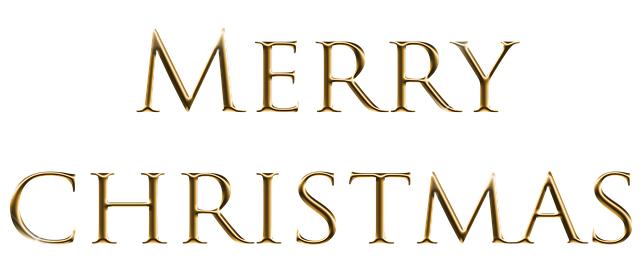
Shine Bright: How to Get Glitter Font on Canva
If you’ve ever wanted to add a touch of sparkle and whimsy to your designs, look no further than glitter fonts. These dazzling text styles can bring your projects to life and grab the attention of your audience. In this article, we’ll show you how to easily create glitter font on Canva, so you can shine bright and stand out in the digital world. Let’s dive in and add some sparkle to your designs!
Choosing the Right Glitter Font
When it comes to selecting the perfect glitter font for your project, there are a few key factors to consider. Firstly, you’ll want to think about the overall style you’re going for. Are you aiming for something elegant and sophisticated, or fun and playful? The right glitter font can really make a statement and set the tone for your design.
Next, consider the readability of the font. Despite the glitzy appearance, it’s important that your text remains legible. Opt for a glitter font that is clear and easy to read, even when used in larger sizes or for headings. Additionally, take into account the color contrast between the glitter and the background. A font that stands out too much can be distracting, so aim for a good balance that highlights your text without overpowering it. Remember, the key is to make your message shine, not get lost in the sparkle.
Exploring Canva's Font Library
Exploring Canva’s Font Library
In Canva’s font library, you’ll find a diverse range of typefaces to suit any design project you’re working on. From classic serif fonts to modern sans-serif styles, you can easily browse through the selection to find the perfect typography to enhance your visual creations. With options for different moods and aesthetics, you can elevate your designs with the right font choice.
One of the great features of Canva’s font library is the ability to filter by font style, weight, and mood. Whether you’re looking for a whimsical script font for a wedding invitation or a bold, impactful typeface for a marketing campaign, you can easily narrow down your search to find the ideal font for your needs. **Experiment with different combinations** of fonts to create unique visual identities for your projects and make your designs stand out from the crowd.
Customizing Glitter Effects for Text
Are you looking to add some sparkle to your text? Look no further! With just a few simple techniques, you can customize glitter effects for your text to make it stand out and shine.
First, choose the perfect glitter texture to achieve the desired look. Whether you prefer a subtle shimmer or a bold sparkle, there are plenty of options to choose from. Next, consider the color of the glitter. Experiment with different shades to find the one that complements your text the best. Once you’ve selected your glitter texture and color, it’s time to apply it to your text using HTML. Simply use the tag with the style attribute to add the glitter effect. Play around with the font size, weight, and style to enhance the overall look. With a bit of creativity and experimentation, you can create a truly unique and dazzling effect for your text.
Adding Depth and Dimension to Your Glitter Font
When it comes to creating a visually captivating glitter font, adding depth and dimension is key. One way to achieve this is by incorporating shadow effects. By adding a drop shadow behind your text, you can give the illusion of depth and make your glitter font pop off the page. Experiment with different shadow angles and distances to find the perfect balance for your design.
Another technique to enhance the depth of your glitter font is by using gradient colors. Create a gradient that goes from a light color to a darker shade to mimic a 3D effect. This will add visual interest and make your text appear more dynamic and lifelike. Don’t be afraid to play around with different gradient styles and colors to find the combination that works best for your design.
Incorporating Sparkles and Shimmers
When into your outfits or makeup looks, it’s important to find the right balance to avoid going overboard. You can start by adding subtle hints of sparkle to elevate your overall look without it being too overwhelming. Consider incorporating sparkly accessories like a clutch or jewelry to add a touch of glamour without being too flashy.
In terms of makeup, you can opt for shimmery eyeshadows or highlighters to add a subtle glow to your face. Blend shimmery eyeshadows onto your eyelids for a hint of sparkle that catches the light beautifully. A touch of shimmer on your cheekbones can also add a youthful and radiant appearance to your makeup look. Remember, less is more when it comes to – a little goes a long way to make a statement.
Mixing and Matching Glitter Fonts
Are you looking to add some sparkle to your designs? is a great way to create eye-catching and unique text styles. By combining different glittery typefaces, you can create stunning typography that will make your designs stand out.
When , it’s important to consider the overall aesthetic you want to achieve. Experiment with different fonts to see how they complement each other, and don’t be afraid to try out bold combinations. Play around with font sizes, styles, and colors to create a dynamic and visually appealing text layout. Remember, the key is to have fun and let your creativity shine through!
Exporting Your Glitter Font Designs
After creating stunning glitter font designs, the next step is to export them for various uses. One popular option is to export your designs as PNG files with transparent backgrounds, allowing you to easily overlay them onto different backgrounds. This format ensures that your glitter fonts will look seamless and professional on any project you choose to use them on.
Another great way to export your glitter font designs is as vector files such as SVG or EPS. Vector files are scalable, meaning you can resize them without losing quality, making them perfect for a wide range of applications. This format is ideal for printing your designs on merchandise, creating logos, or even using them in large-scale projects like billboards or posters. By as vector files, you ensure that they will look crisp and clear no matter the size.
Sharing Your Glitter Font Creations
Are you ready to showcase your dazzling glitter font creations to the world? Share your gorgeous designs on social media platforms like Instagram, Twitter, and Pinterest to inspire others with your creativity. You can also join online communities and forums dedicated to typography and design to connect with like-minded individuals and gain valuable feedback on your glittery masterpieces.
Feeling extra proud of your glitter fonts? Consider entering design contests and challenges to put your skills to the test and potentially win recognition for your hard work. Don’t forget to tag your creations with popular design-related hashtags to increase visibility and reach a wider audience. Whether you’re a seasoned designer or just starting out, is a great way to get your work out there and gain recognition in the design community.
Q: What is a glitter font and how can it enhance my designs?
A: A glitter font is a typeface that simulates the look of glitter and adds a touch of glamour and sparkle to your designs. It can make your text pop and stand out from the rest.
Q: Can I create a glitter font on Canva?
A: Yes, you can create a glitter font on Canva by using the various text effects and editing tools available on the platform.
Q: What are some steps to create a glitter font on Canva?
A: To create a glitter font on Canva, you can start by selecting a text box, choosing a font style, and then going to the “Effects” tab to add glitter to your text.
Q: Are there any tips for making my glitter font look more realistic and vibrant?
A: To make your glitter font look more realistic and vibrant, consider using a high-quality glitter texture, adjusting the opacity and blend mode of the glitter effect, and experimenting with different colors and sizes.
Q: Can I use glitter font for any type of design or project?
A: Yes, you can use glitter font for a wide range of designs and projects, such as social media graphics, invitations, posters, and more. Just keep in mind the overall aesthetic of your design and make sure the glitter font complements it.
Q: Is there a limit to the number of glitter fonts I can use in one design?
A: There is no specific limit to the number of glitter fonts you can use in one design, but it’s important to use them judiciously and not overwhelm your design with too much glitter. Experiment with different combinations to find what works best for your specific project.
Final Thoughts
Adding glitter font to your designs in Canva is a fun and easy way to make them pop. So go ahead and shine bright!